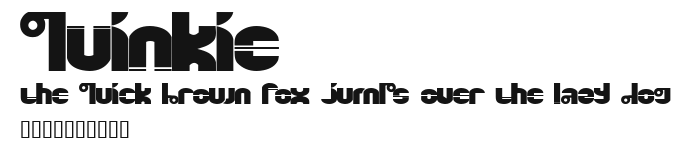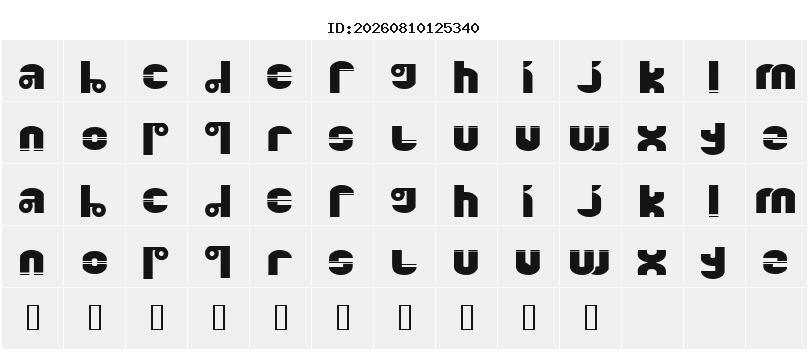
• Font Name: Quinkie
• Full Font Name: Quinkie
• PostScript Name: Quinkie
About Quinkie.ttf
Quinkie.ttf is a modern, elegant sans-serif font designed for ultimate readability and visual harmony. Perfect for branding, headlines, web design, and print materials.